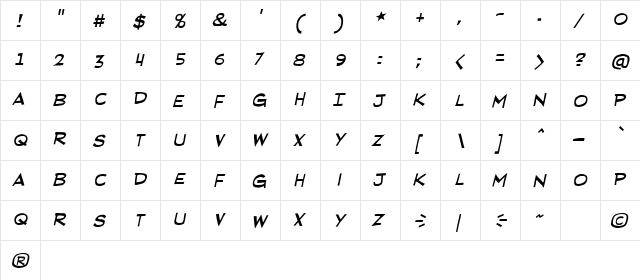
RedStateBlueState BB Italic
| Foundry | Nate Piekos. Blambot.com |
| Designer | Nate Piekos |
Design Context for RedStateBlueState BB Typeface
RedStateBlueState BB takes a measured approach to typography — its balanced proportions and neutral character make it a reliable workhorse for both digital and print work. Its italic angle brings a sense of urgency and motion to the letterforms.
Pro Tip: Use RedStateBlueState BB for emphasis, pull quotes, and subheadings where its slanted energy can add rhythm to the layout.